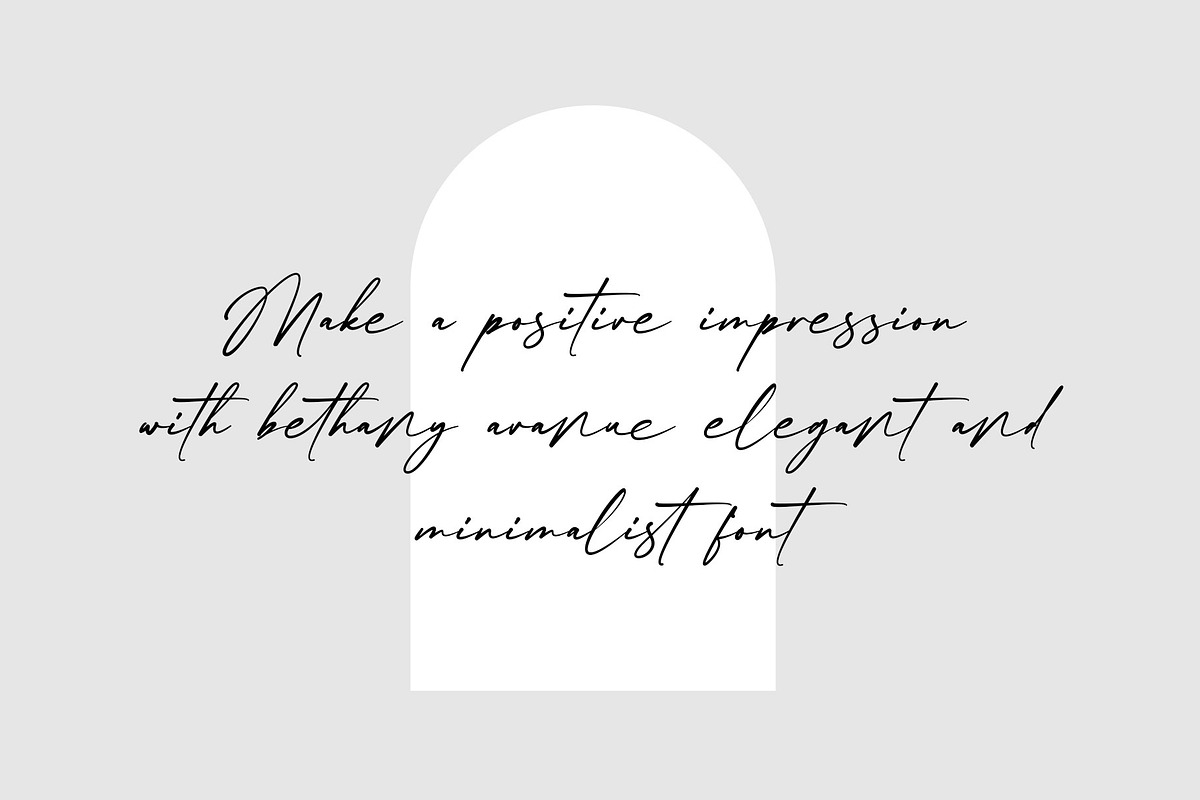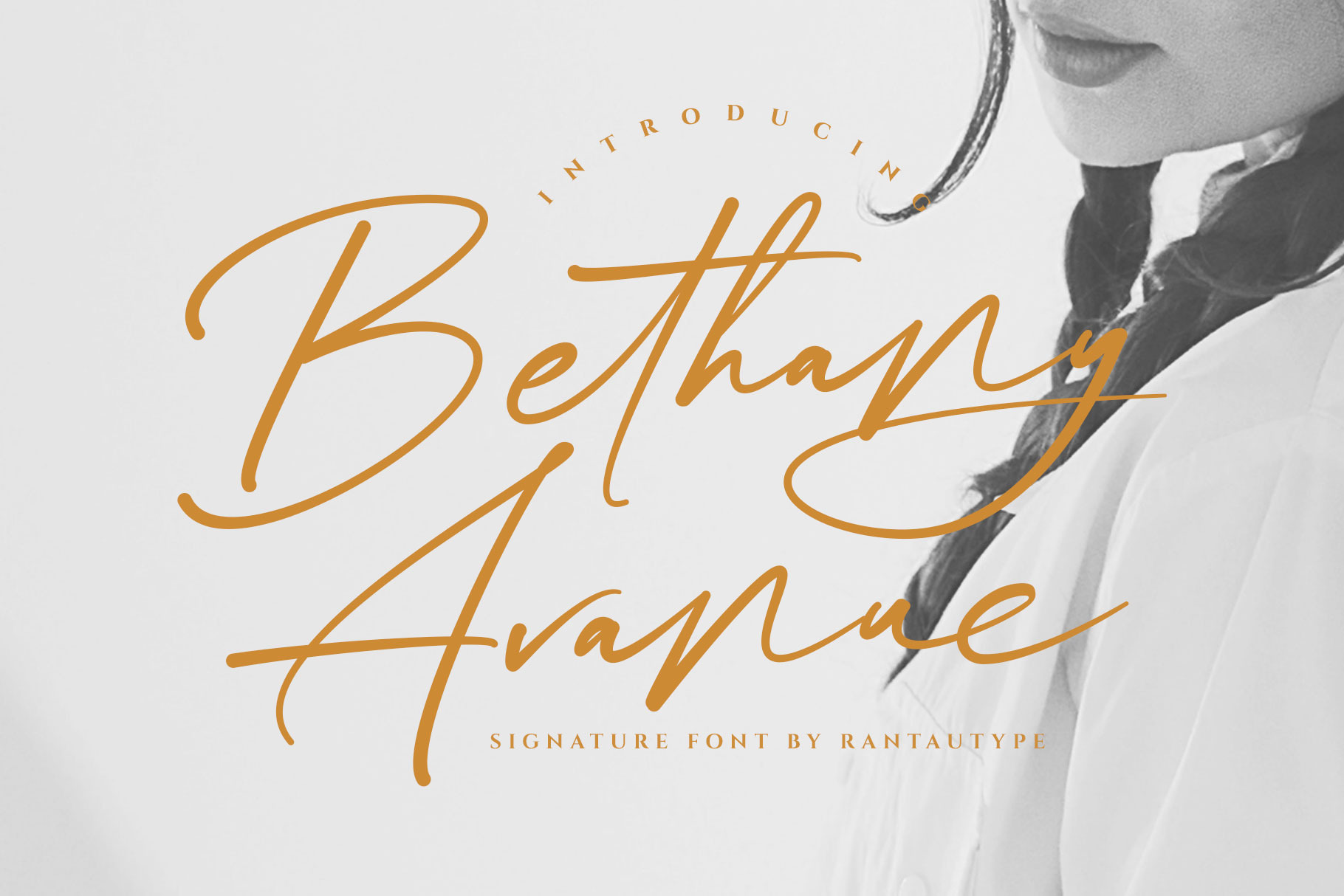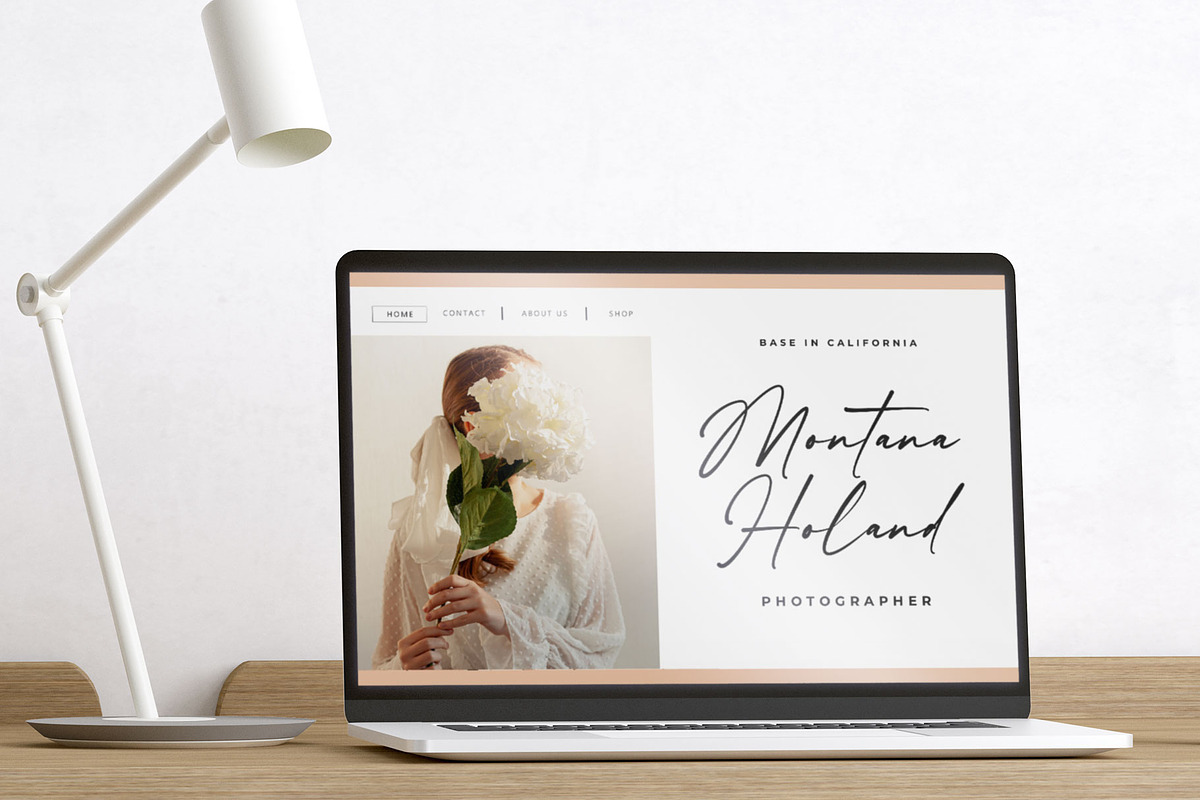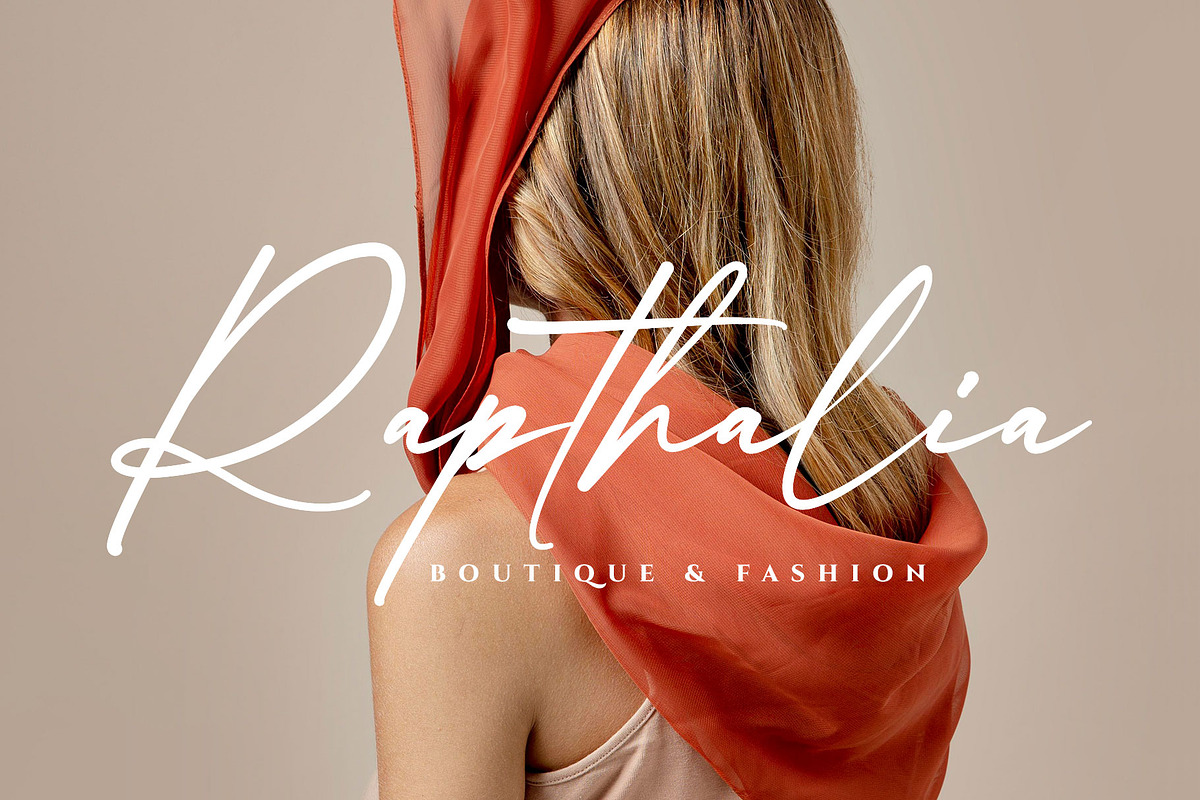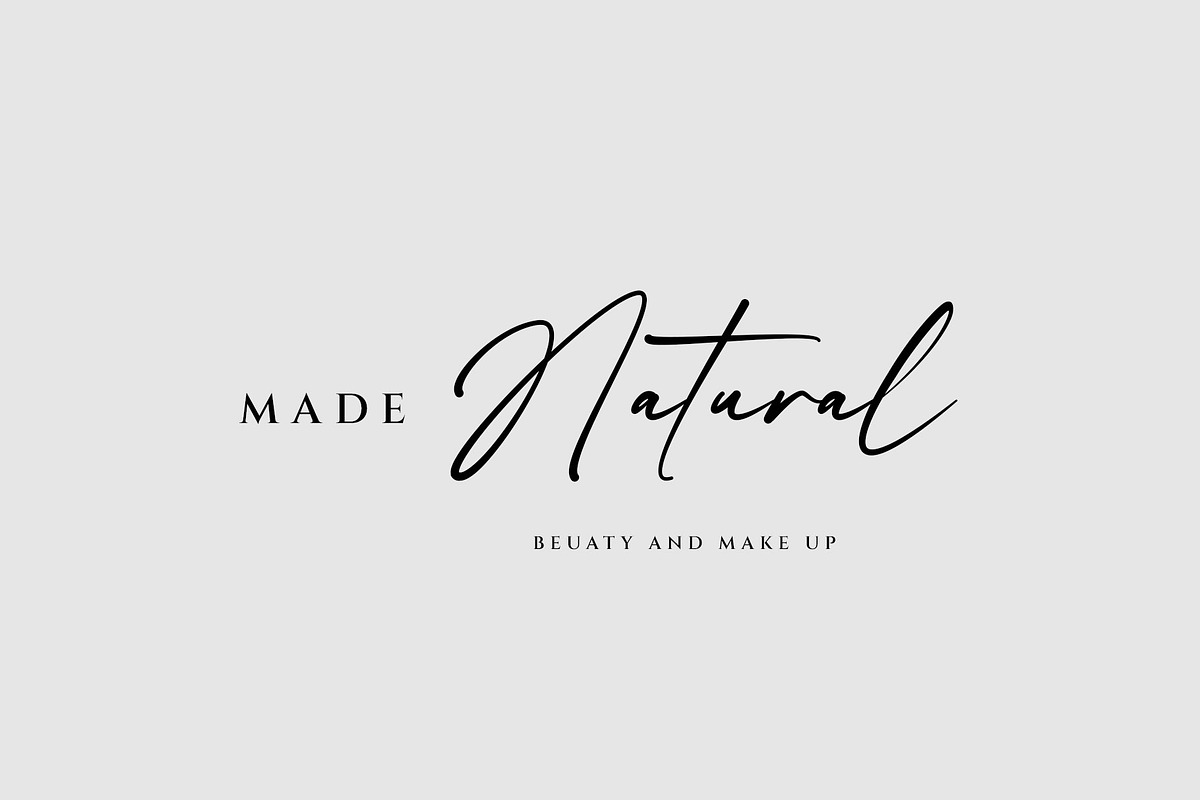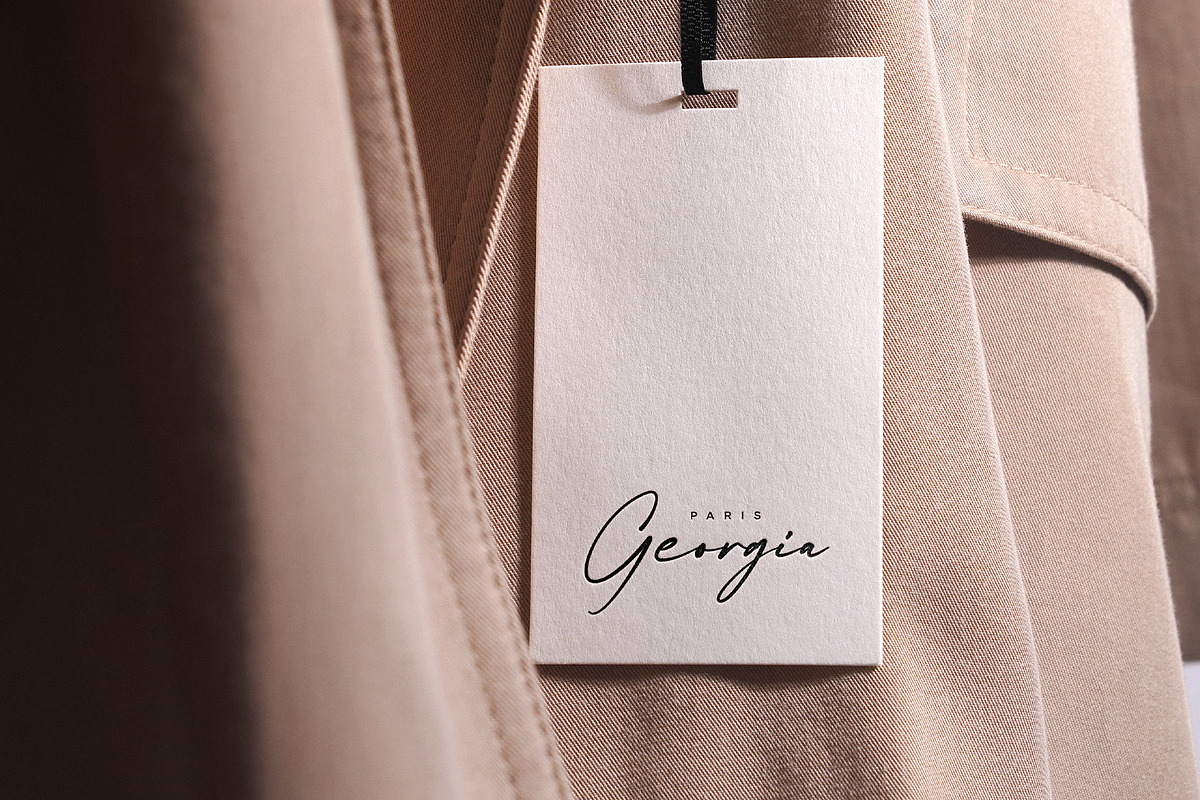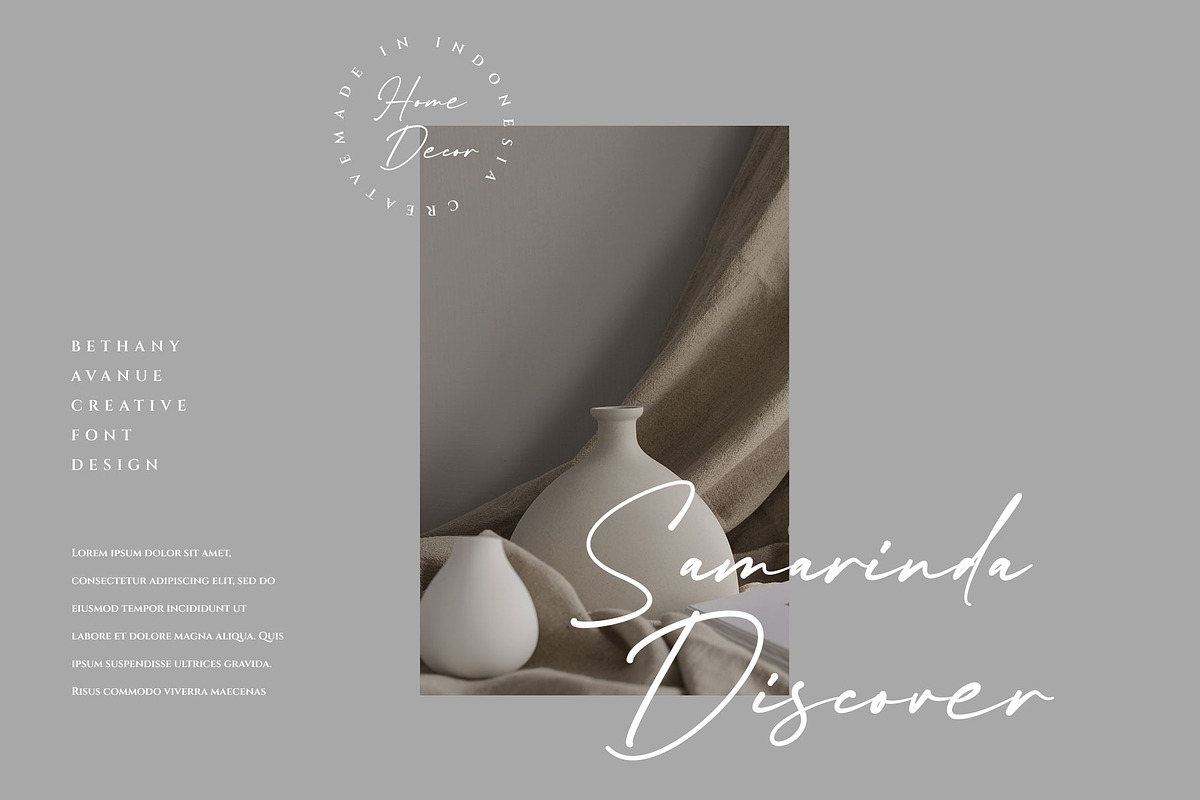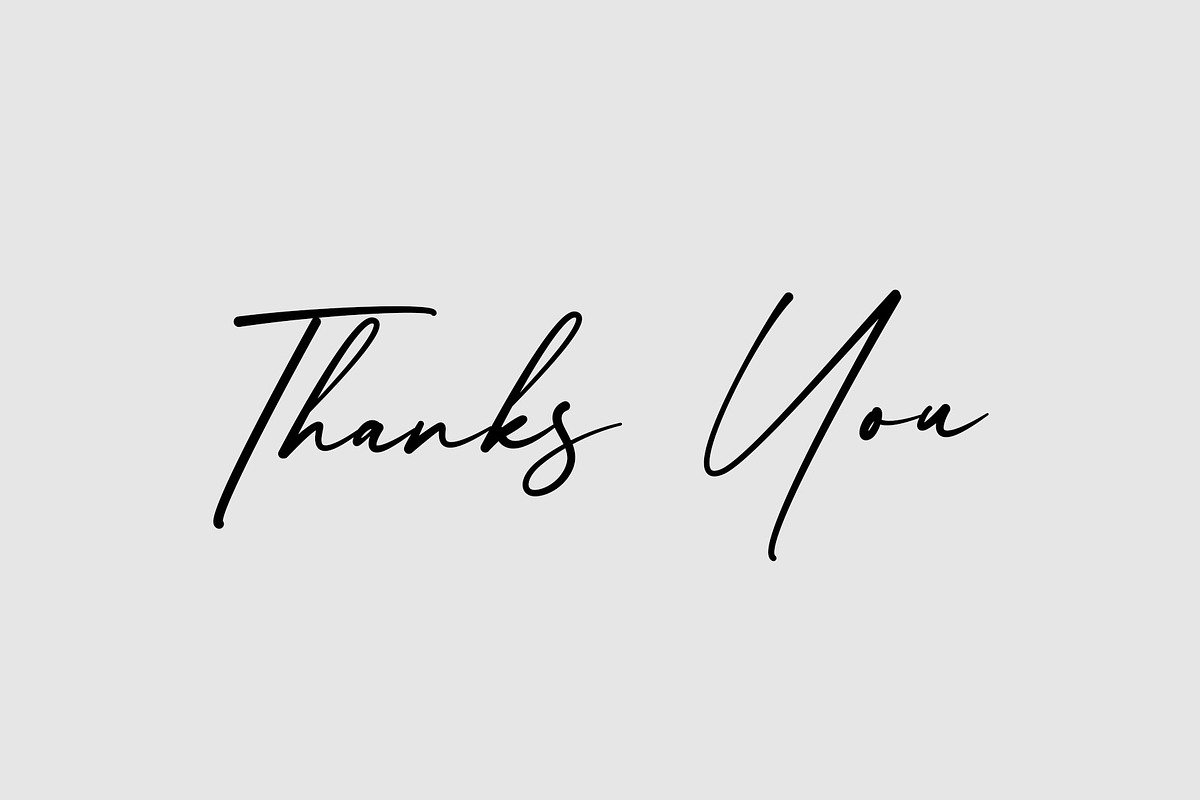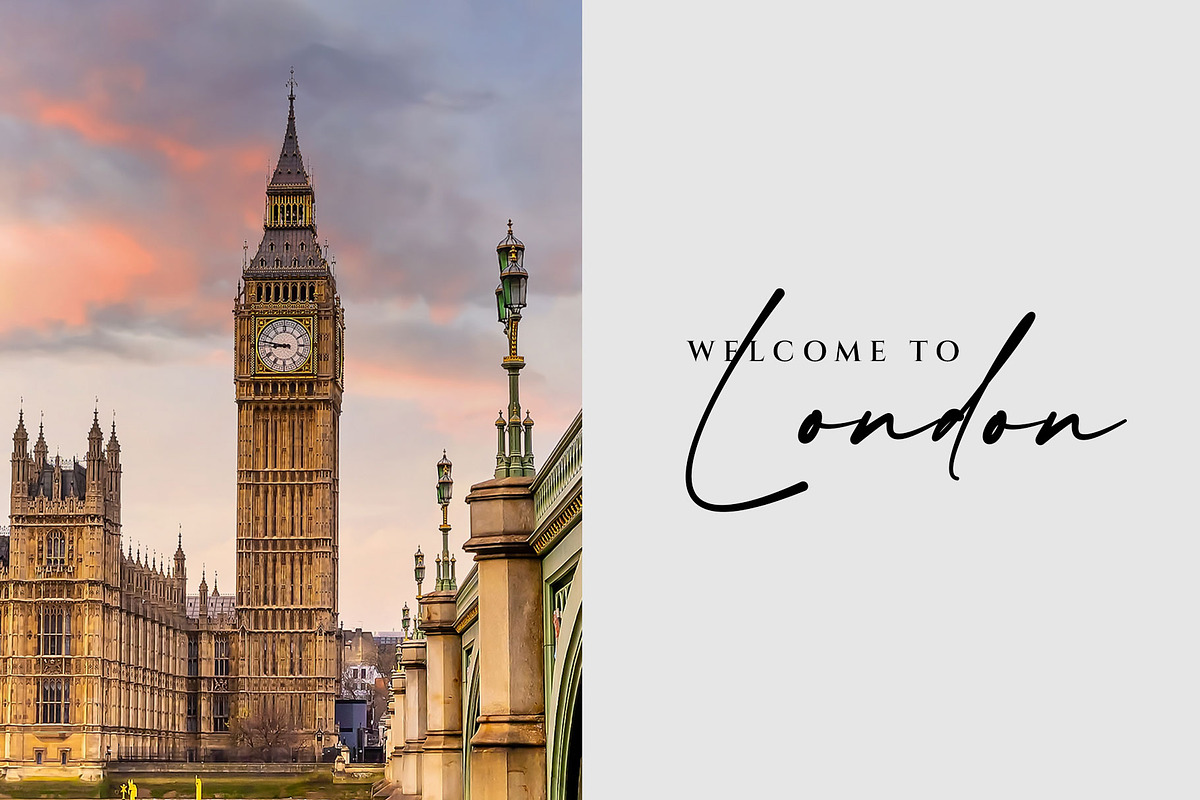
Bethany Avanue Modern Business Font
Bethany Avanue - modern style font which can be interpreted professional. we keep this font looks modern, minimalist, elegant, readable, stylish, catchy and easy to use.
Bethany Avanue - is the great choice for watermark on photography, branding, wedding event, signature or signature logo design, quotes, album cover, magazine, business card and many other design project. Bethany Avanue here to make your work to high level!!!